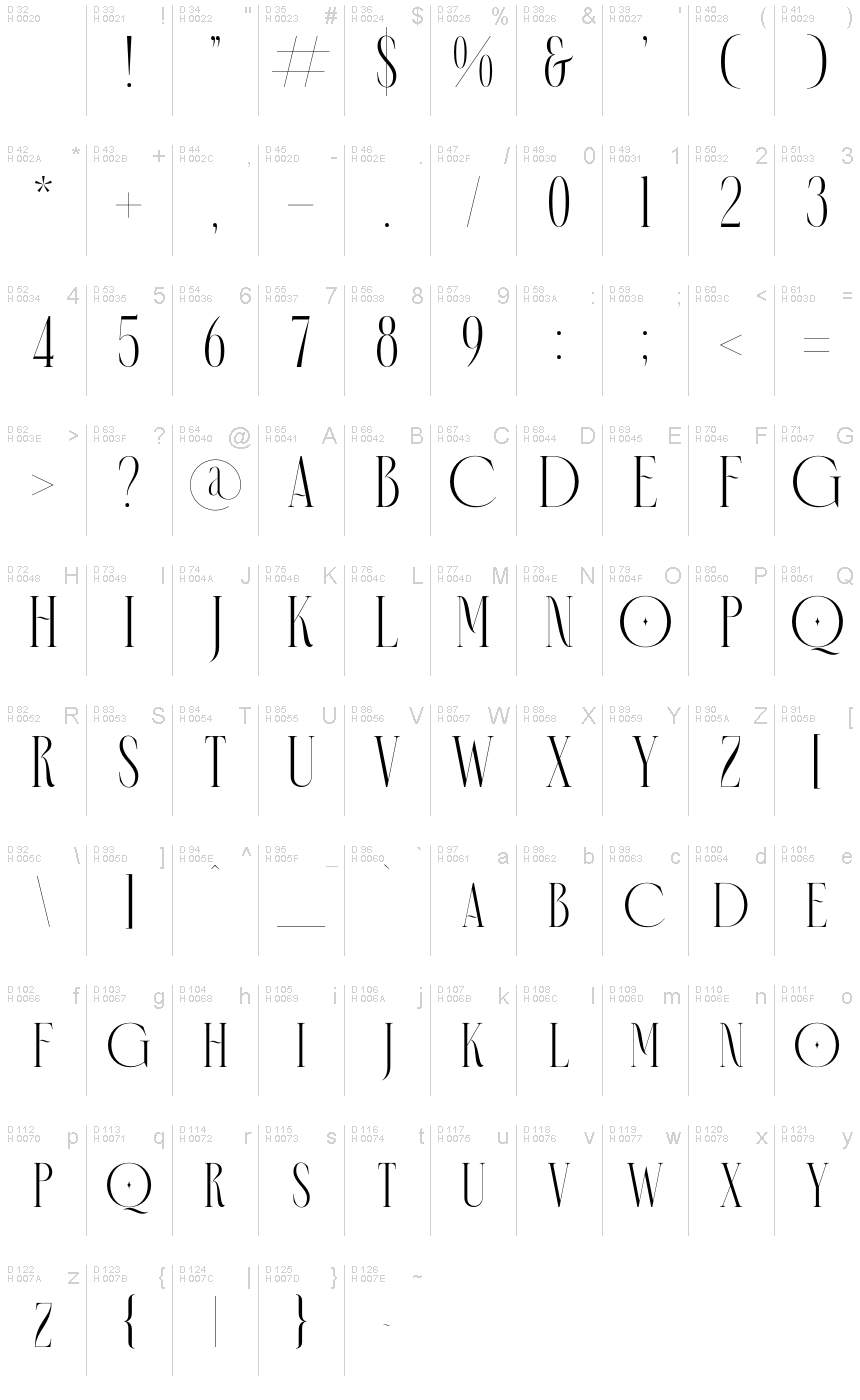
Meorgine
Meorgine, crafted by Storytype Studio, captivates with its elegant and refined serif design. This font exudes sophistication through its light appearance, allowing it to glide effortlessly across the page while maintaining a strong presence. Its condensed form creates a striking visual impact, making each letter a testament to precision and style.
With graceful curves and distinct detailing, Meorgine is perfect for luxury branding, high-end editorial work, or any context where elegance is paramount. The harmonious balance of its features lends itself beautifully to invitations, fashion magazines, and sophisticated online platforms. Whether paired with vibrant imagery or minimalist aesthetics, Meorgine stands out as an exquisite choice for the discerning designer seeking to elevate their typographic expression.